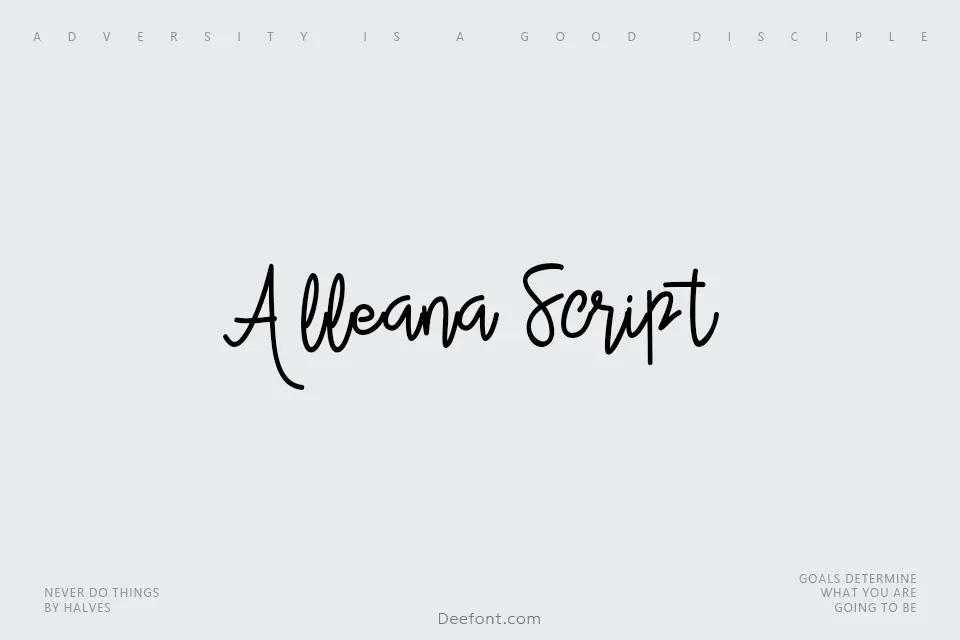
Alleana Script Font
Alleana Script is a captivating handwritten font by ijem that blends modern calligraphy with a playful, wavy rhythm. Its smooth, varying strokes create a casual yet elegant aesthetic, making it perfect for wedding invitations, signature logos, and stylish branding. This versatile script adds a unique, personal touch to posters, labels, and creative headlines.